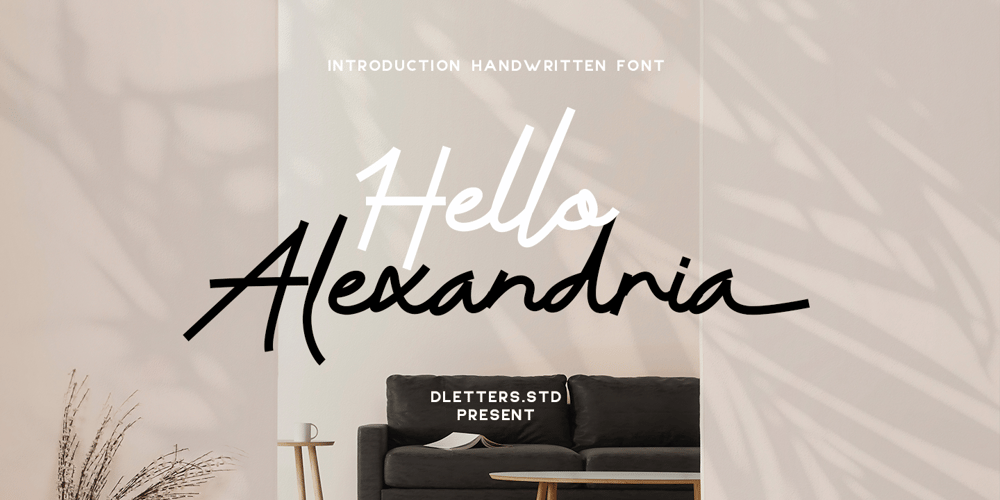
Hello Alexandria Font Family was designed by Diosi Julianto and published by DLetters Studio. Hello Alexandria contains 1 styles and family package options. Hello Alexandria is a modern handwritten font, the name of this font taken from a city in Egypt (Alexandria).USEHello Alexandria works great in branding, logos, Quotes, headlines, high fashion, Landing Page and Magazine.FEATURESLigatures, Stylistic Alternates, Numbers & Punctuation / Extensive Language SupportThanks for checking out Hello Alexandria. I really hope you enjoy using it!